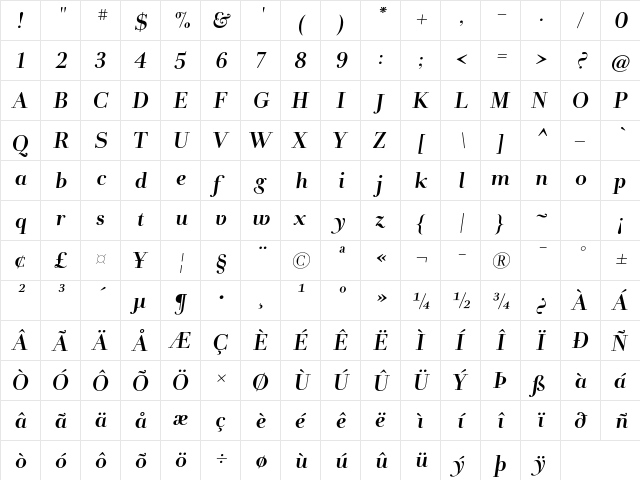
Andrade Pro Bold Italic Font Preview
Design Context for Andrade Pro Typeface
Andrade Pro offers clean, dependable letterforms without strong stylistic allegiance, making it a practical choice for designers who need flexibility. Its italic angle brings a sense of urgency and motion to the letterforms. The heavy weight commands attention and anchors typographic hierarchies.
Pro Tip: Try Andrade Pro for annotation and caption copy alongside an upright companion — the contrast in angle creates a dynamic but ordered typographic system.